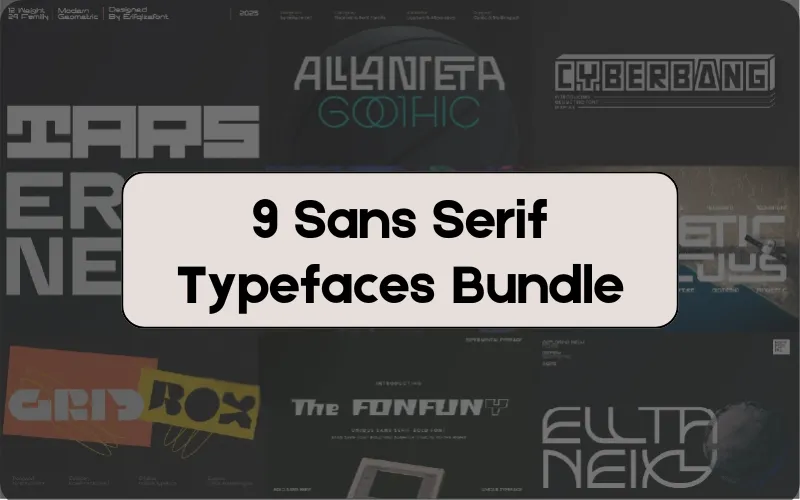
Bring a professional edge to your creative projects and refine your visual identity with this Sans Serif Typefaces Bundle. This collection includes 9 carefully designed sans serif font families in OTF, TTF, WOFF, and WOFF2 formats — fully compatible with popular design tools and ready for commercial use.
- Minimal, modern, futuristic, gothic, and experimental aesthetics
- Stylistic alternates and ligatures for customizable typography
- Full uppercase & lowercase, numerals, punctuation, alternates, and ligatures
- Styles included: Minimal, modern, futuristic, gothic, experimental
- Cyberbang Font
- Elltaneixy Font
- ERF Alanteta Goothic
- ERF NEOT
- ERF TARS
- GRIDBOX
- Propolish Rufftu
- SynteticAsrocuus
- The Fontfuny